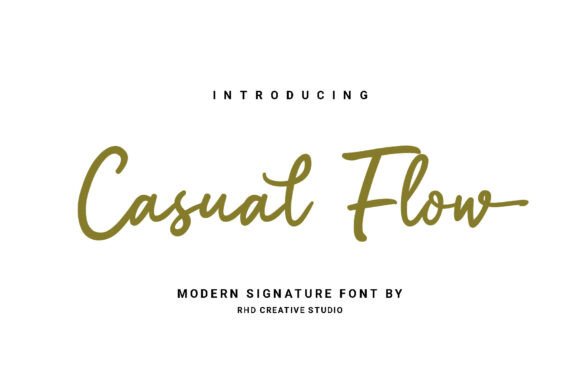
The Power of Personal Touch: How Casual Flow Font Can Elevate Your Designs
I’ll never forget the time I was working on a wedding stationery project for a client who wanted a custom, elegant look that still felt approachable and personal. As I scrolled through font after font, nothing seemed quite right – either too formal, too quirky, or just plain bland. That’s when I stumbled upon Casual Flow, a modern signature font that instantly captured the warm, human touch I was searching for.
With Casual Flow, I was able to infuse my design with a relaxed, rhythmic script that exuded a natural, ink-flow aesthetic. The balanced swashes and consistent weight made it perfect for creating a cohesive brand identity that felt both sophisticated and down-to-earth. In this article, I’ll dive into the world of Casual Flow, exploring its unique features, practical applications, and how to get the most out of this beautiful font.
An Honest Review of Casual Flow
- ✅ The natural, hand-crafted feel that adds a touch of warmth to any design
- ✅ Elegant swashes and flourishes that elevate the font to a new level of sophistication
- ✅ Consistent weight and spacing that create a beautiful, cohesive look
- ✅ Highly versatile and adaptable to various design applications
While Casual Flow is an exceptional font, there are a few things to keep in mind:
- ⚠️ May not be suitable for very small font sizes or body text due to its script nature
The Story Behind Casual Flow
Imagine a designer who spent years perfecting the art of hand-lettering, pouring over countless scripts and typography books. This designer, inspired by the fluid motion of ink on paper, set out to create a font that captured the essence of human touch. After months of refinement and iteration, Casual Flow was born – a modern signature font that embodies the perfect balance of elegance and approachability.
Q: What makes Casual Flow suitable for personal branding?
A: Casual Flow’s unique blend of elegance and approachability makes it an excellent choice for personal branding, allowing individuals to establish a distinctive and memorable visual identity.
Q: How does Casual Flow compare to other script fonts?
A: Casual Flow stands out from other script fonts due to its balanced swashes, consistent weight, and natural, ink-flow aesthetic, making it a versatile and sophisticated choice.
Q: Can I use Casual Flow for wedding stationery and invitations?
A: Absolutely! Casual Flow’s elegant and approachable feel makes it an excellent choice for wedding stationery, invitations, and other special occasion designs.